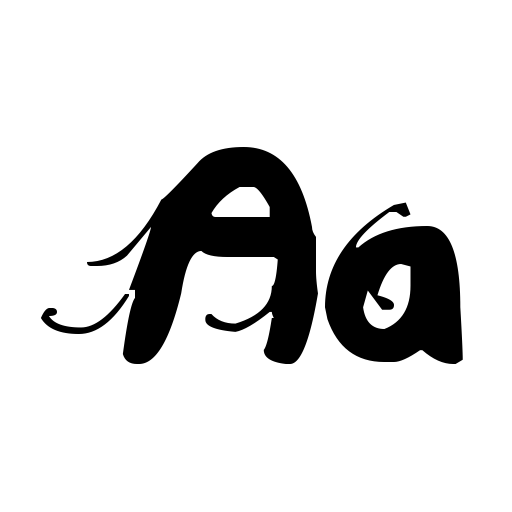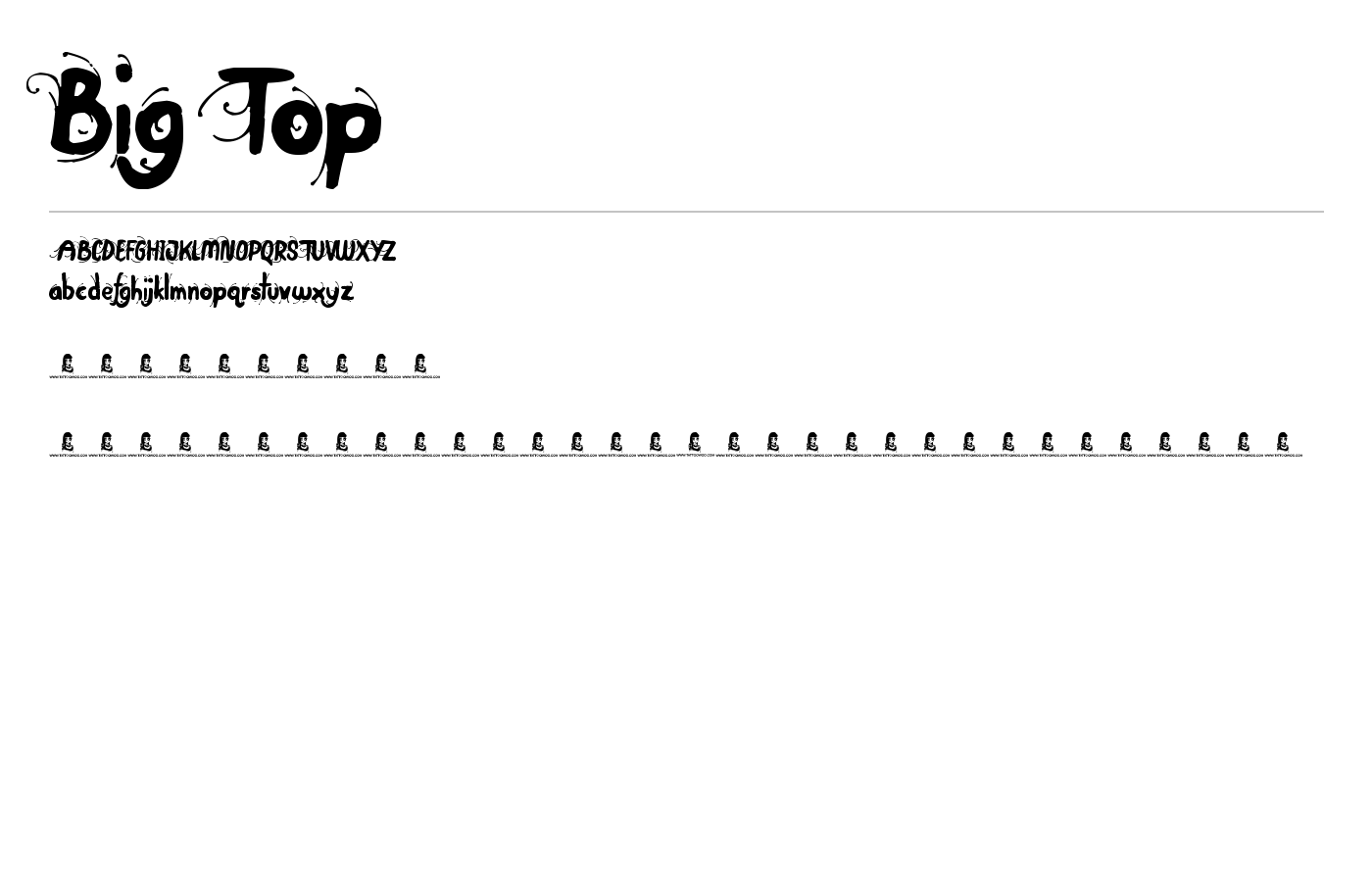
Big Top is a playful and bold display font with a hand-drawn, whimsical style that brings a lively, circus-like vibe to any design. Its thick, irregular strokes and quirky curls create a fun and informal feel, making it perfect for eye-catching headlines, posters, children’s projects, and branding that seeks a cheerful, creative touch. This font stands out best in creative and casual contexts where personality and energy are key.
Big Top Font
About Big Top Font